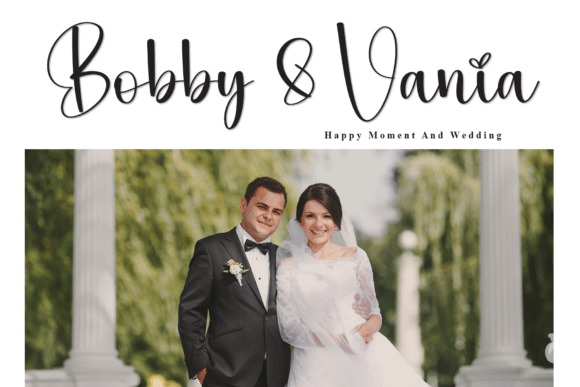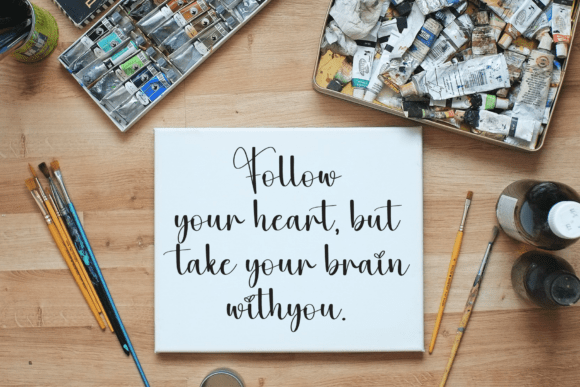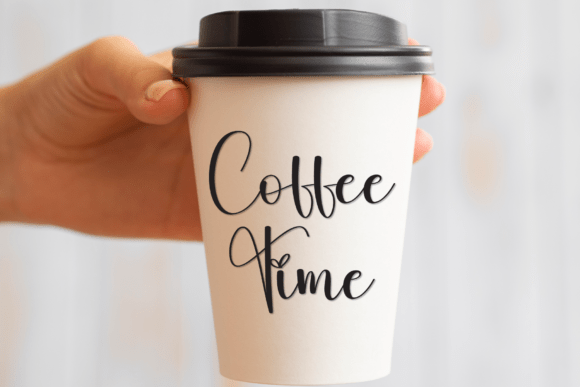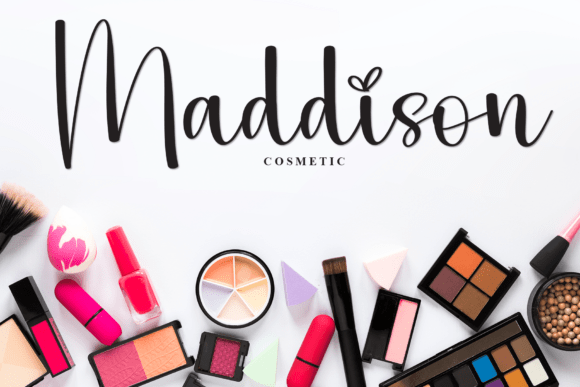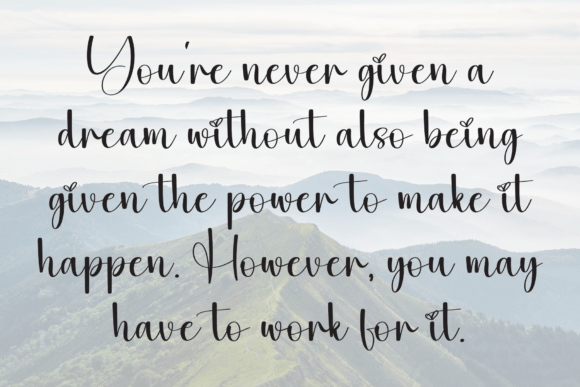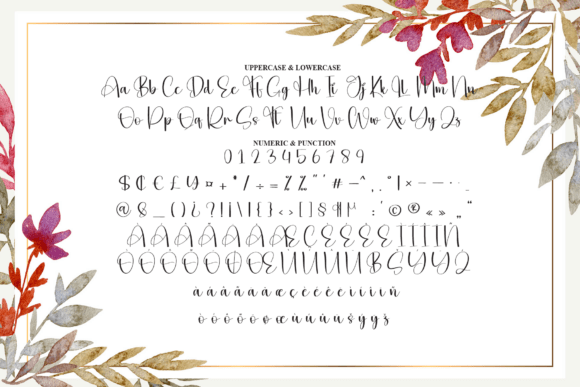
Introducing Delightful: The Luxury Handwriting Font for Elevating Visual Storytelling
In the world of typography, a font can make or break the aesthetic of a brand, product, or invitation. For those seeking to convey a sense of sophistication, elegance, and refinement, Delightful is the perfect luxury handwriting font. With its ultra-thin, airy strokes and romantic heart-shaped diacritics, Delightful embodies the essence of “boutique elegance,” making it an ideal choice for designers and crafters looking to elevate their visual storytelling.
The Characteristics of Delightful
Delightful’s unique features set it apart from other fonts. Its ultra-thin strokes give it an airy, delicate feel, while its romantic heart-shaped diacritics add a touch of whimsy and playfulness. The font’s verticality and graceful loops provide a high-end, personalized touch that exudes sophistication and refinement. These characteristics make Delightful perfect for brands that want to convey a sense of luxury, approachability, and artisanal quality.
Best Use Cases for Delightful
Delightful is a versatile font that can be used in various contexts to create a lasting impression. Here are some of the best use cases for Delightful:
- Boutique Branding: Delightful is perfect for boutique brands that want to convey a sense of elegance and sophistication. Whether it’s for a fashion brand, a jewelry store, or a high-end service provider, Delightful can help create a luxurious and refined visual identity.
- Wedding Invitations: For couples looking for a unique and elegant font for their wedding invitations, Delightful is an excellent choice. Its romantic and whimsical feel makes it perfect for wedding stationery, save-the-date cards, and other wedding-related materials.
- Luxury Skincare Packaging: Delightful can add a touch of luxury and sophistication to luxury skincare packaging. Its elegant and refined feel makes it perfect for labeling high-end skincare products, creating a cohesive brand image.
- Personalized Social Media Signatures: Delightful can also be used to create personalized social media signatures that exude elegance and sophistication. Whether it’s for a business owner, an artist, or an influencer, Delightful can help create a unique and refined online presence.
Why Choose Delightful?
With so many fonts available, why choose Delightful? Here are a few reasons why Delightful stands out:
- Unique and Elegant: Delightful’s ultra-thin strokes and romantic heart-shaped diacritics make it a unique and elegant font that can elevate any visual project.
- Versatile: Delightful can be used in various contexts, from boutique branding to wedding invitations, luxury skincare packaging, and personalized social media signatures.
- Sophisticated and Refined: Delightful exudes sophistication and refinement, making it perfect for brands and individuals looking to create a high-end visual identity.
Tips for Using Delightful Effectively
To get the most out of Delightful, here are some tips for using it effectively:
- Pair with Neutral Colors: Delightful looks best when paired with neutral colors such as white, beige, or light gray. This allows the font to take center stage and showcase its elegance.
- Use for Headings and Titles: Delightful is perfect for headings and titles, where its elegance and sophistication can shine.
- Experiment with Ligatures: Delightful features romantic heart-shaped diacritics and ligatures that can add a touch of whimsy and playfulness to your text.
Delightful is a luxury handwriting font that can elevate your visual storytelling with its ultra-thin strokes, romantic heart-shaped diacritics, and sophisticated feel. Whether you’re a designer, crafter, or business owner, Delightful is perfect for creating a refined and elegant visual identity. With its versatility and unique characteristics, Delightful is sure to become a go-to font for those seeking to convey a sense of luxury, approachability, and artisanal quality.